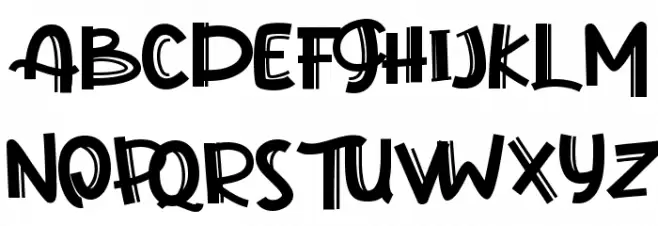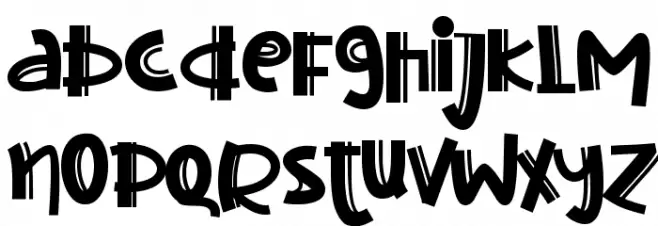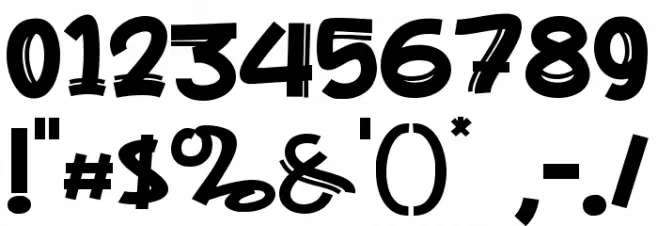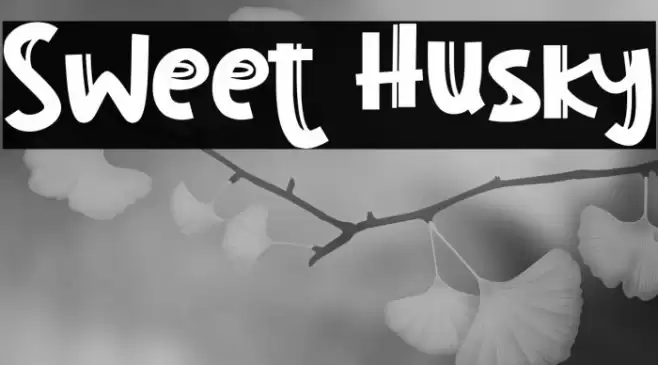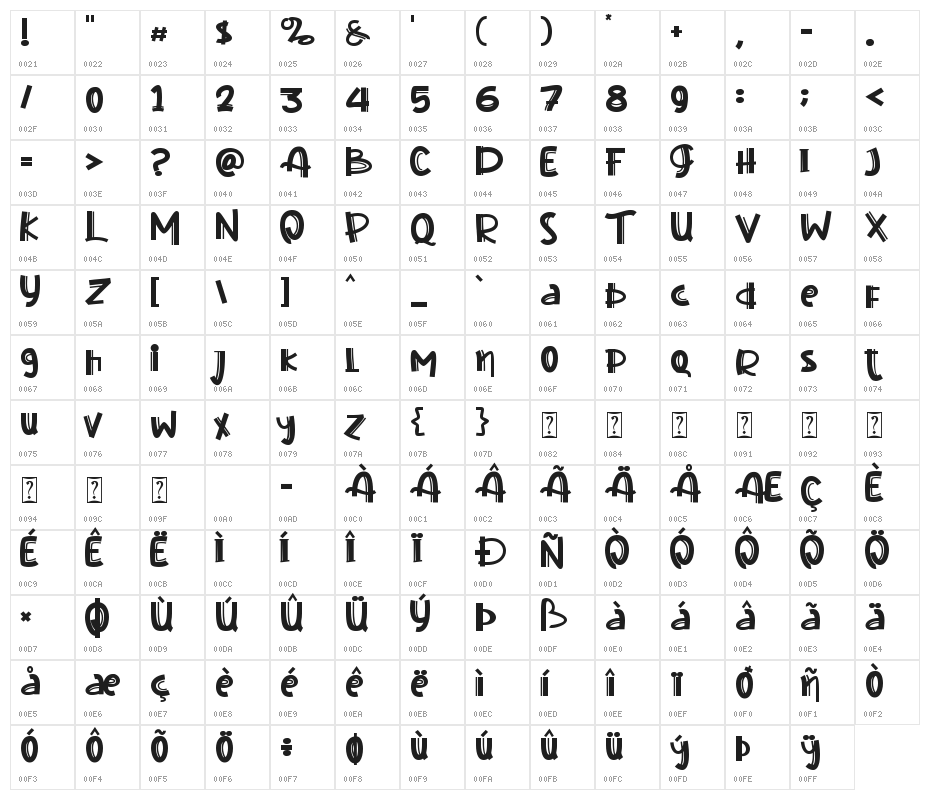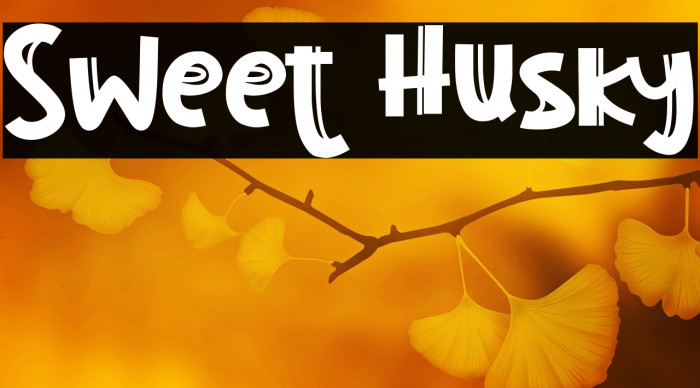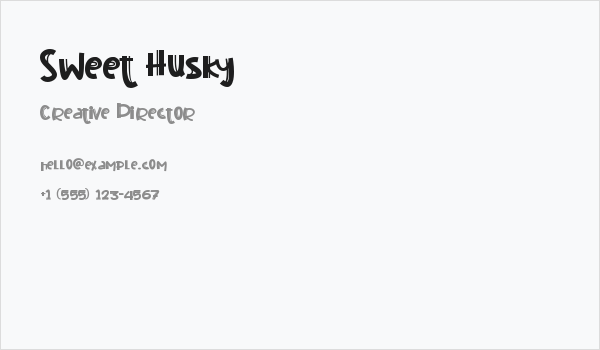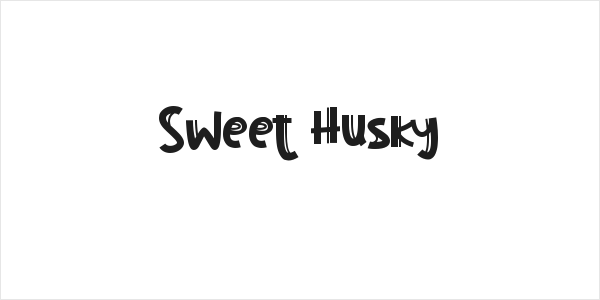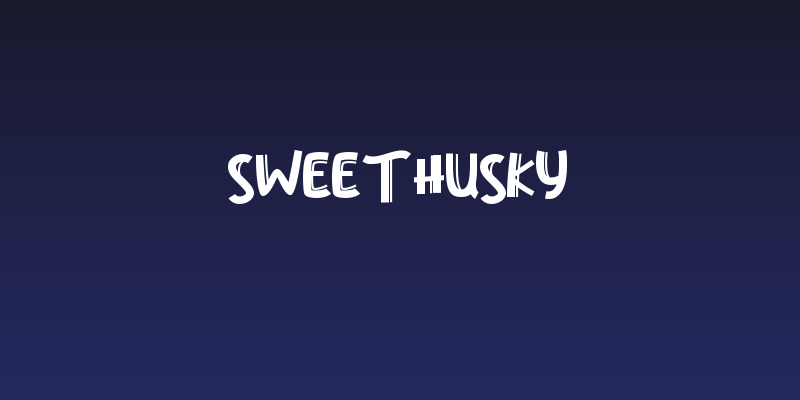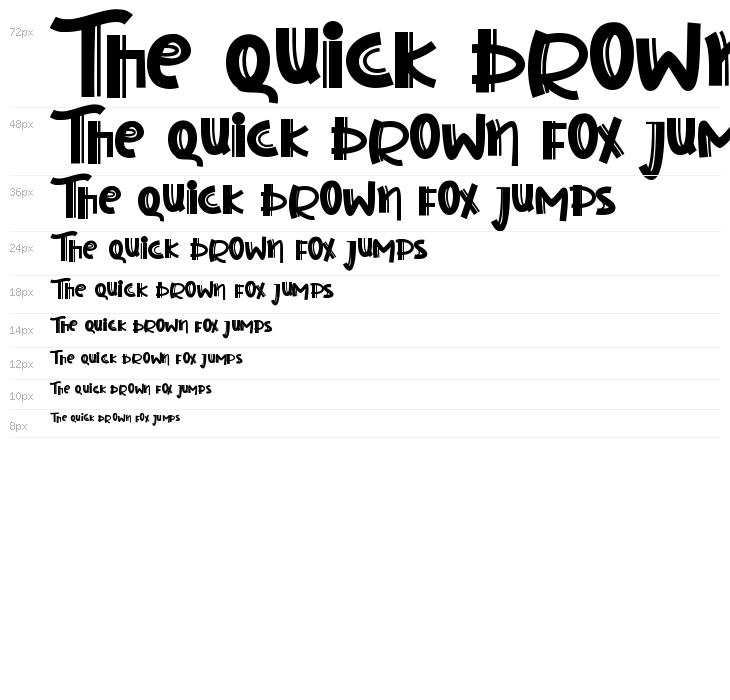
Sweet Husky Font
Sweet Husky Description
This font features a playful and bold style with a unique, whimsical flair. The characters are designed with a mix of thick and thin strokes, giving them a dynamic and energetic appearance. The uppercase and lowercase letters maintain a consistent style, with exaggerated curves and angles that add to the font's lively character. The numbers and special characters are equally bold and expressive, making them stand out. This font is perfect for projects that require a fun and eye-catching design.
A playful and bold font with dynamic strokes and whimsical flair.
- Proposed Projects: Ideal for children's books, playful branding, posters, and party invitations.
- Overall Style: Playful, Whimsical